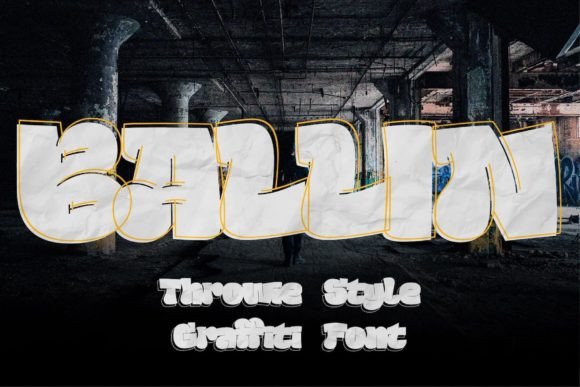
Get your hands on Ballin, the ultimate font that screams street art authenticity. This display font, designed by Surplus Type Co., captures the raw essence of urban graffiti. Picture yourself creating designs that mimic tags found under bridges or on the sides of train cars, evoking a sense of rebellion and creativity.
With Ballin, you can unleash your inner artist and craft designs that are bursting with personality. Whether you're working on apparel projects, band merchandise, or sports content, this font will elevate your designs to the next level.
The beauty of Ballin lies in its tight spacing and overlapping characters, which perfectly emulate the authentic street style. Each letter is meticulously crafted to convey the essence of urban art, guaranteeing a captivating visual experience.
Dive into the world of Ballin and let your creativity explode. Transform your designs into captivating works of art, showcasing the bold and rebellious spirit of street culture. Don't miss out on this exceptional font - own Ballin today and make your mark on the world of design.